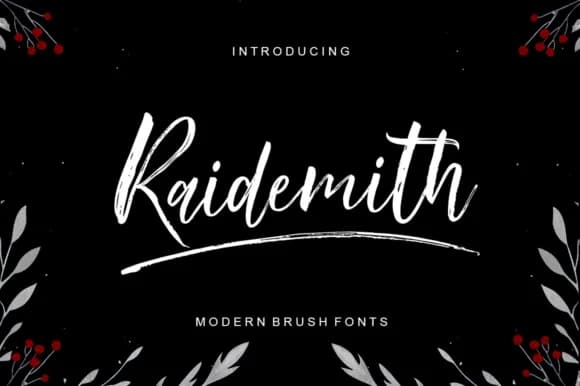
Raidemith Font by scoothtype is a textured brush script that captures the organic energy of hand-drawn lettering with its uneven baselines and tactile character. The irregular letterforms create authentic visual rhythm, making each word feel personally crafted rather than digitally processed. This distinctive approach works particularly well for wedding invitation suites, where the organic quality adds warmth and individuality, as well as artisan product labels seeking a genuine handmade aesthetic. Boutique cosmetics packaging and DIY craft sign projects gain character and visual interest from its natural variations. The font's textured brush construction means it pairs best with projects where authenticity matters more than formal precision. Its swash alternates provide flexibility for designers who want to customize letterforms and add flourishes that enhance the overall hand-lettered appearance. Raidemith works effectively as both a striking display headline and a decorative accent, though its artistic character truly shines brightest when sized generously for maximum visual impact. The textured quality and natural imperfections are what make this script special, they signal authenticity in a digital world increasingly saturated with perfectly consistent, algorithmic typefaces that lack personality and warmth. Get Raidemith Font on Creative Fabrica and bring this distinctive handcrafted elegance to your next project.
- Elegant, Flowing, Raidemith
Raidemith Font is a script font that shines as a display or heading face. Pair it with a clean sans-serif or serif font for body text β the contrast creates a clear hierarchy while the two styles stay balanced and easy to read.
Raidemith Font
by scoothtype